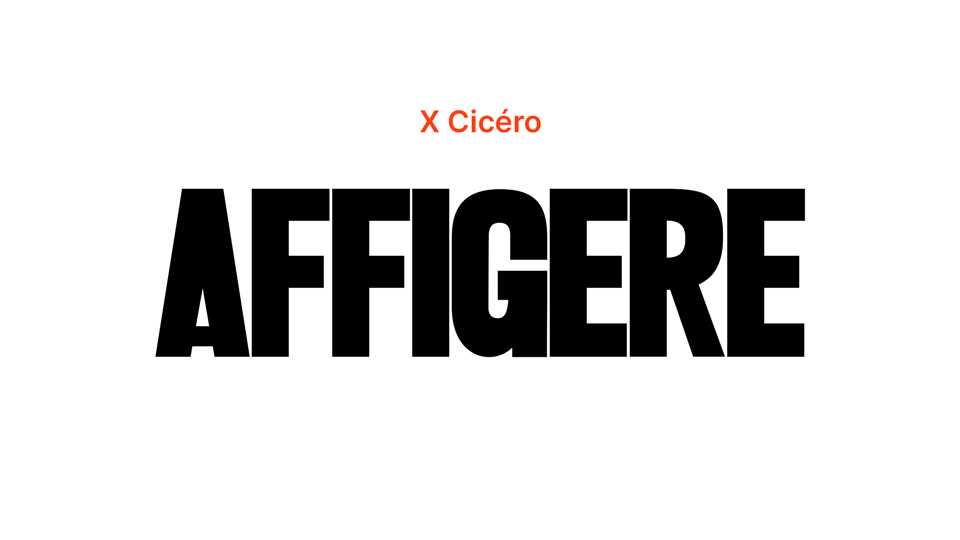
Download Affigere font, a bold sans serif typeface designed from an unidentified incomplete set of wood type. Affigere font brings the look and charm of hand-set typography to the digital desktop.
Designer: Romain Laurent